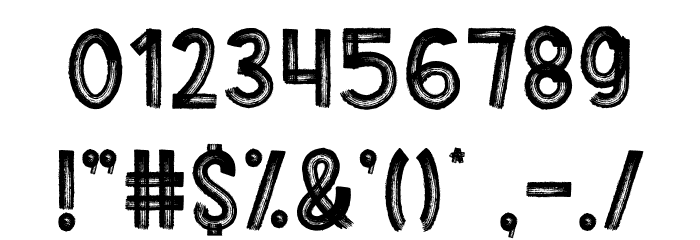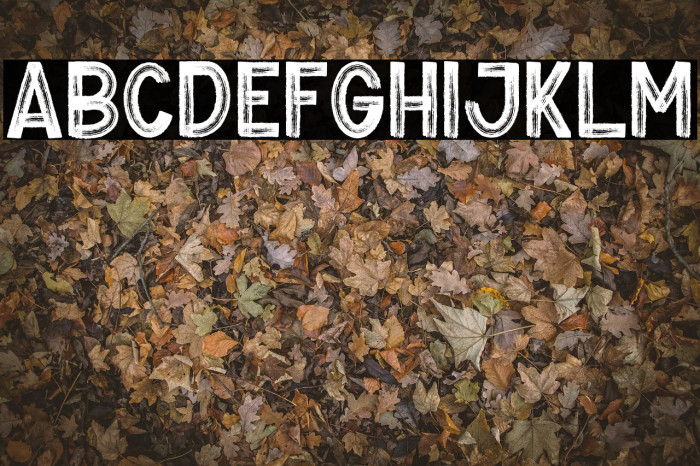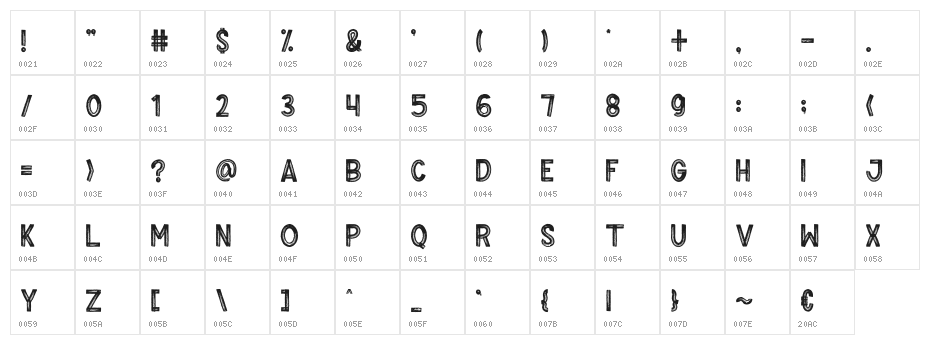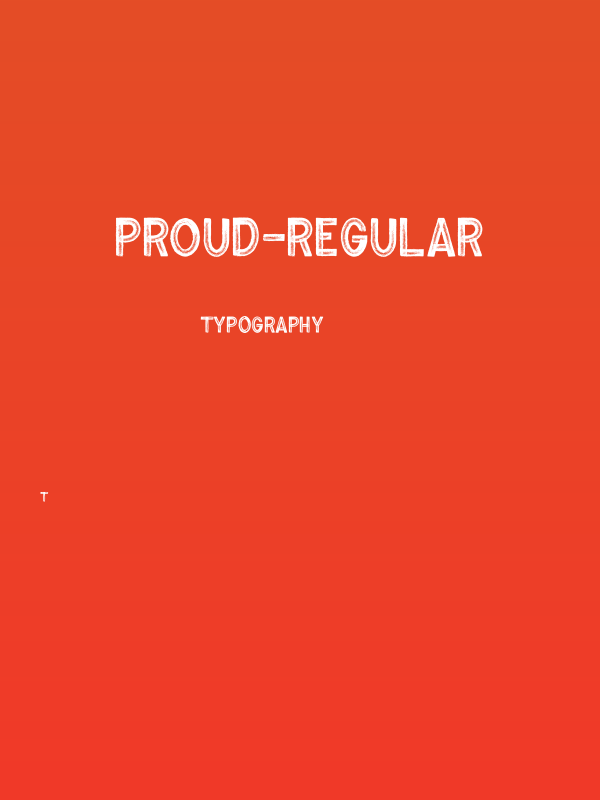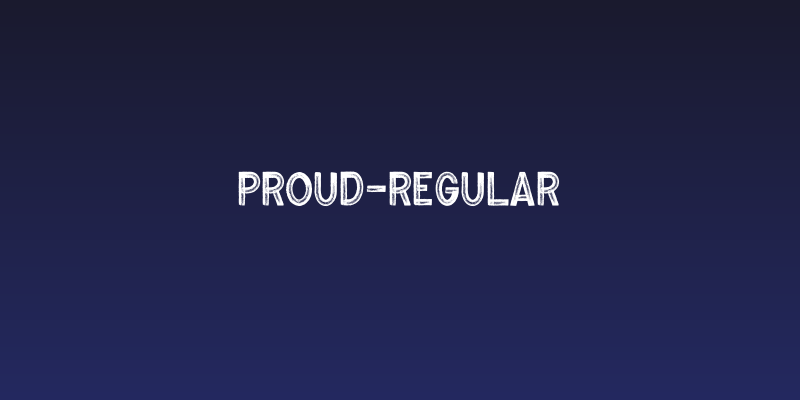
Proud-Regular Font
This font features a bold, textured style with a hand-drawn appearance. Each character is outlined with a rough, sketch-like quality, giving it a dynamic and artistic feel. The uppercase letters are prominent and assertive, while the numbers and special characters maintain the same boldness and texture. The overall design is playful yet strong, making it suitable for creative projects that require a distinctive and eye-catching typeface.
A bold, textured, hand-drawn style font with a dynamic and artistic feel.
- Proposed Projects: Ideal for posters, artistic branding, children's book covers, and creative advertisements.
- Overall Style: Artistic, Playful